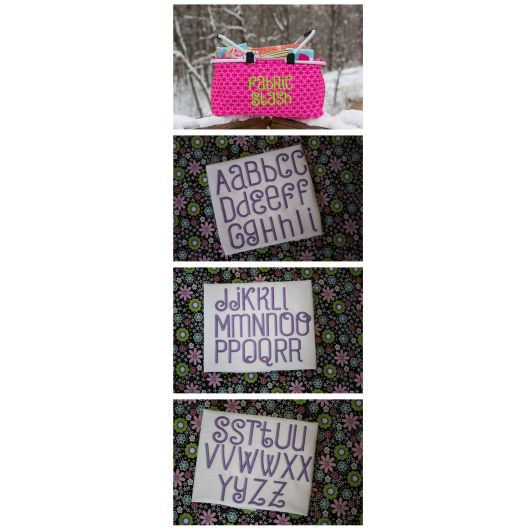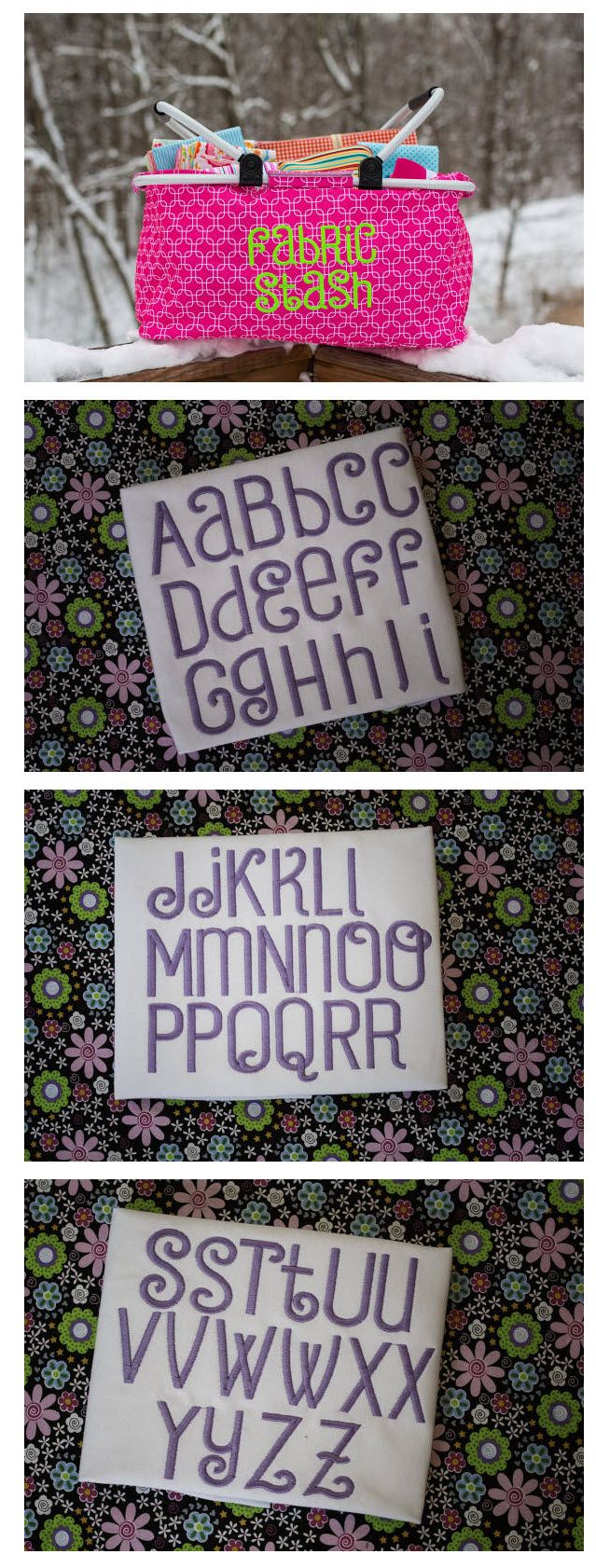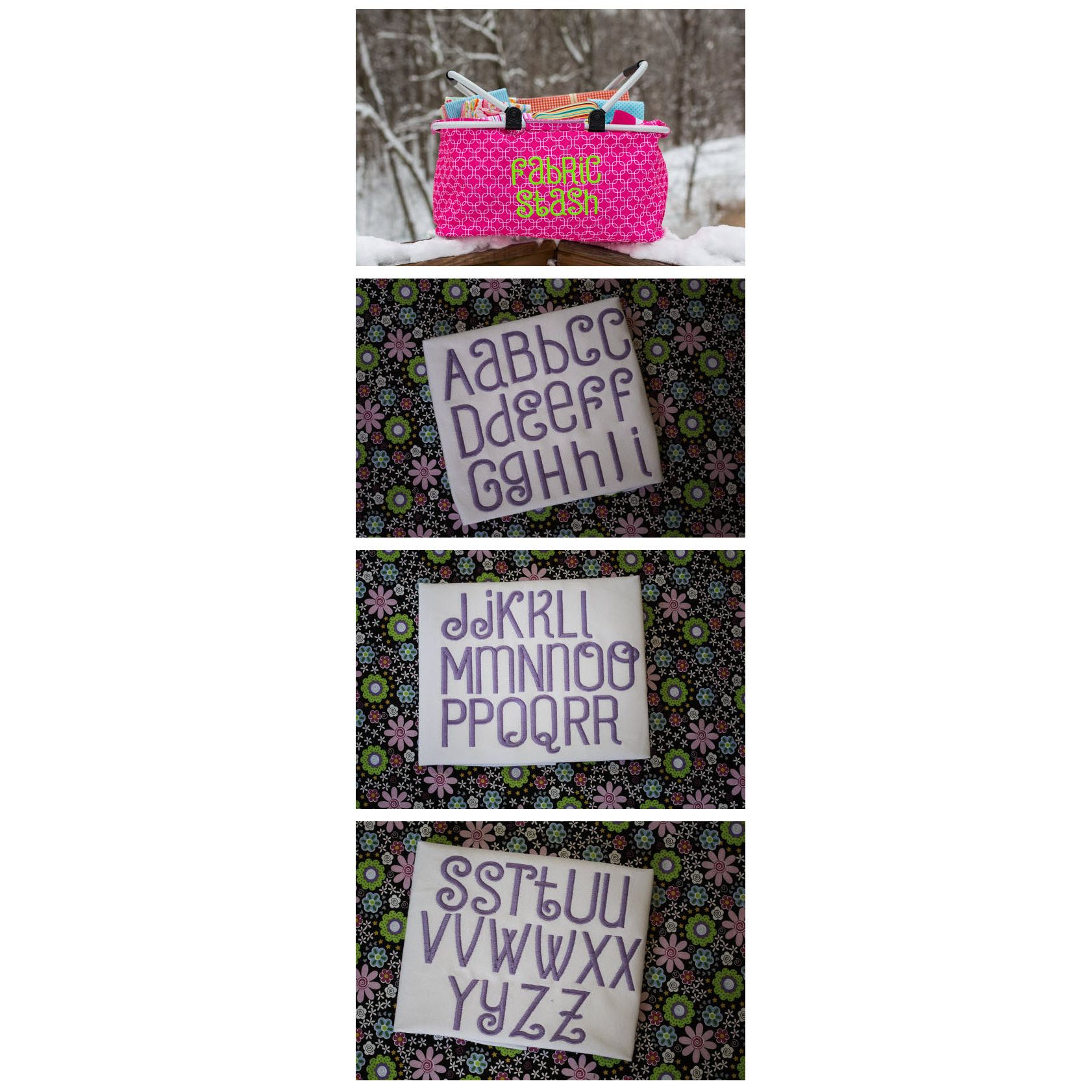
Julia Satin Stitch Embroidery Font
I just love this font! It is wonderful for boys or girls..all of the letters are the same height. *NOTE: this is a mixed case font..that means some "lowercase" letters will look like the uppercase.*
6 sizes!
1 inch, 1.5 inch, 2 inch, 2.5 inch, 3 inch, 3.5 inch
**Please note that the 3 inch and 3.5 inch letters are in a filled column stitch and NOT satin. The stitching is all angled and they stitch out beautifully.